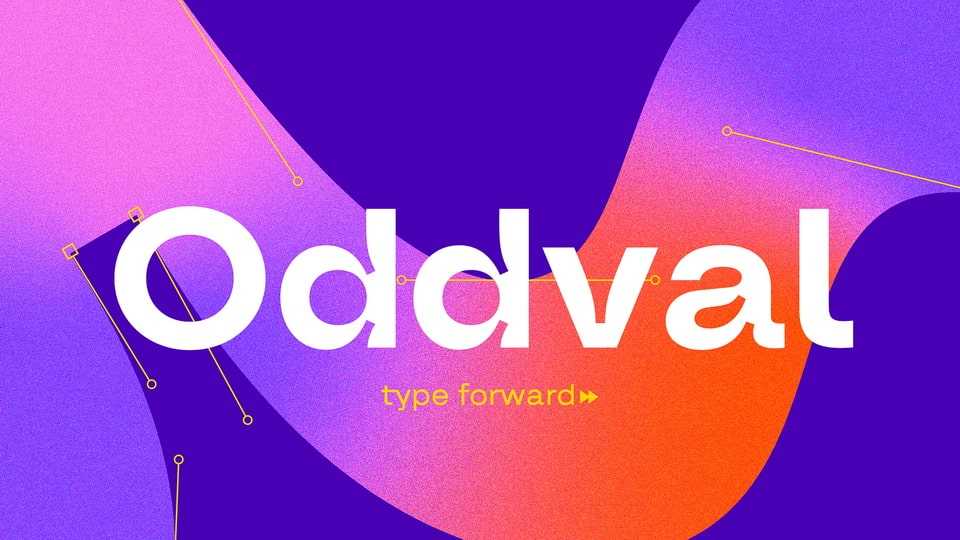
Download Oddval font, a unique contemporary display geometric sans serif with prominent ink traps and a smooth, masculine tone. Due to its modern and original style, Oddval font is well-suited for creative projects closely linked to innovation.
Designer: Type Forward